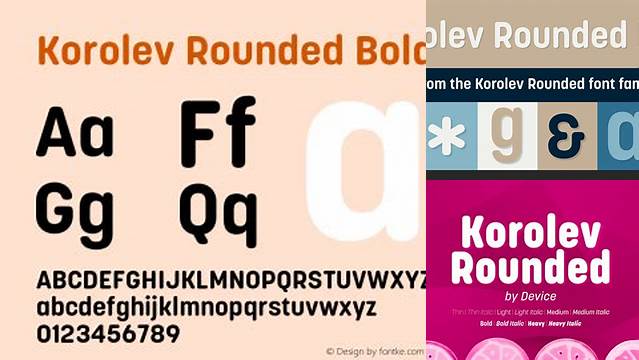
Unleashing the Power of Korolev Rounded Extra Bold
Hey design enthusiasts! Today, we're diving deep into the awesome world of typography, specifically focusing on the incredibly versatile and eye-catching Korolev Rounded Extra Bold font. If you're on the hunt for a font that commands attention, adds a touch of friendly charm, and works like a dream across various design projects, you've come to the right place, guys. This font isn't just another pretty face; it's a powerhouse of personality, ready to elevate your graphics, web designs, and branding. We're going to explore where you can snag this gem for free, how to make the most of its robust features, and why it's becoming a go-to for designers looking to make a statement. So, buckle up, and let's get this font party started! Understanding the nuances of typography is crucial for any designer, and fonts like Korolev Rounded Extra Bold offer a unique blend of strength and softness that can be surprisingly impactful. Its bold weight ensures readability even at smaller sizes, while the rounded terminals give it a warm, approachable feel, making it perfect for everything from headlines to packaging. This font has the potential to transform a flat design into something truly memorable, and we're here to guide you through its fascinating characteristics.
Why Korolev Rounded Extra Bold Stands Out
So, what makes Korolev Rounded Extra Bold font such a standout player in the crowded world of typography, huh? It's all about its unique character and how it blends strength with a friendly vibe. Firstly, that 'Extra Bold' part isn't just for show; it means this font has serious heft. It's designed to grab attention, making it perfect for headlines, titles, logos, and any element where you need to make a strong visual impact. Think of it as the font equivalent of a confident handshake – solid and memorable. But here's the magic twist: the 'Rounded' aspect. Unlike sharp, aggressive sans-serifs, Korolev Rounded Extra Bold softens the edges. This gives it an approachable, modern, and somewhat playful feel. It’s like a strong character who’s also super friendly and easy to talk to. This combination is gold for designers. It allows you to convey authority and importance without feeling cold or intimidating. This duality makes it incredibly versatile. You can use it for a cutting-edge tech startup aiming for a bold, modern look, or for a children's brand that needs to feel fun and inviting. The clean lines ensure legibility, while the rounded terminals add that subtle warmth that makes a design feel more human. It’s this thoughtful design that sets it apart and makes it a favorite for so many projects. The balance it strikes is truly exceptional.
Mastering Headlines with Korolev Rounded Extra Bold
When it comes to making your headlines pop, the Korolev Rounded Extra Bold font is your secret weapon, guys. Its inherent boldness means that even the shortest phrase will command attention. Imagine a website banner, a magazine cover, or a social media post – placing your main message in this font is like putting a spotlight on it. The 'Extra Bold' weight ensures maximum impact, cutting through visual clutter and instantly communicating importance. But it’s not just about being loud; it's about being clear and engaging. The rounded terminals of the Korolev font soften the boldness, preventing it from feeling overly aggressive or harsh. This makes your headlines not only attention-grabbing but also inviting and easy to read. For instance, think about using it for a sale announcement; the boldness conveys urgency and excitement, while the rounded edges make the offer seem friendly and accessible. It’s perfect for creating a strong first impression, drawing readers into your content. Experiment with different sizes and tracking (the spacing between letters) to find the perfect rhythm. Even a simple word like 'Sale!' can become a powerful visual element when set in Korolev Rounded Extra Bold. This font is fantastic for creating a hierarchy of information, ensuring your most critical messages are seen first and understood easily. It's a font that truly works hard for your headlines.
Korolev Rounded Extra Bold for Branding & Logos
When you’re building a brand, your logo and overall visual identity are everything, right? That’s where the Korolev Rounded Extra Bold font really shines. Its distinctive character makes it a fantastic choice for creating memorable logos. The 'Extra Bold' weight gives a logo presence and authority – it feels solid, reliable, and established. Think of brands that want to project strength and trustworthiness; this font can help convey that message instantly. But, as we’ve chatted about, the rounded edges add a crucial element of approachability and modernity. This is super important for brands that want to connect with their audience on a more personal level. It prevents the logo from feeling too corporate or sterile. Imagine a tech startup that wants to appear innovative and friendly, or a food brand that needs to feel wholesome and inviting – Korolev Rounded Extra Bold can hit that sweet spot. It’s legible even at small sizes, which is vital for everything from business cards to app icons. Furthermore, when used consistently across all your branding materials – from your website and social media to packaging and print collateral – this font helps build a cohesive and recognizable brand identity. It’s a font that not only looks good but also communicates the right message about your brand’s personality and values. It’s a true branding chameleon.
Enhancing Web Design with Korolev Rounded Extra Bold
In the realm of web design, choosing the right typography can make or break a user’s experience. Enter the Korolev Rounded Extra Bold font, a fantastic tool for adding impact and personality to your websites. Its boldness is perfect for headings and subheadings, immediately drawing the user's eye to key information. This helps create a clear visual hierarchy, guiding visitors through your content effectively. For instance, on a landing page, using Korolev Rounded Extra Bold for the main call-to-action button or the primary headline can significantly increase engagement. The 'Extra Bold' weight ensures these crucial elements stand out, even on busy pages. But it's not just about impact; the rounded nature of the font lends a friendly and modern feel, which is often desired in contemporary web design. This makes your site feel more approachable and less intimidating, encouraging longer visits and better interaction. It's especially effective for websites targeting a younger demographic or aiming for a casual, user-friendly vibe. When implemented correctly, this font ensures that important text is not only seen but also enjoyed. Consider using it for navigation elements that need to be instantly recognizable or for product names on an e-commerce site. Its legibility across different screen sizes is also a major plus. Remember to pair it with a lighter, more neutral font for body text to maintain readability and create a balanced design aesthetic. This font is a powerhouse for web aesthetics.
Conclusion: Why Korolev Rounded Extra Bold Rocks
Alright, wrapping things up, let's just reiterate why the Korolev Rounded Extra Bold font is such a gem in the design world, guys. We've seen that it masterfully combines strength with friendliness, thanks to its 'Extra Bold' weight and those signature rounded terminals. This unique blend makes it incredibly versatile – perfect for impactful headlines, memorable logos, engaging web designs, and eye-catching print materials. Plus, the fact that you can often find it for a free download from reputable sources makes it accessible to designers of all levels. We covered how to install it, troubleshoot common issues, and get creative with its application across various software and projects. Remember to use its boldness strategically, pay attention to spacing and contrast, and pair it thoughtfully with other fonts to achieve that professional polish. Whether you're rebranding a business, designing a social media campaign, or creating a personal project, Korolev Rounded Extra Bold offers a powerful yet approachable way to make your message stand out. So go ahead, download it, experiment with it, and let its robust charm elevate your next design! It’s a font that truly delivers impact with personality.